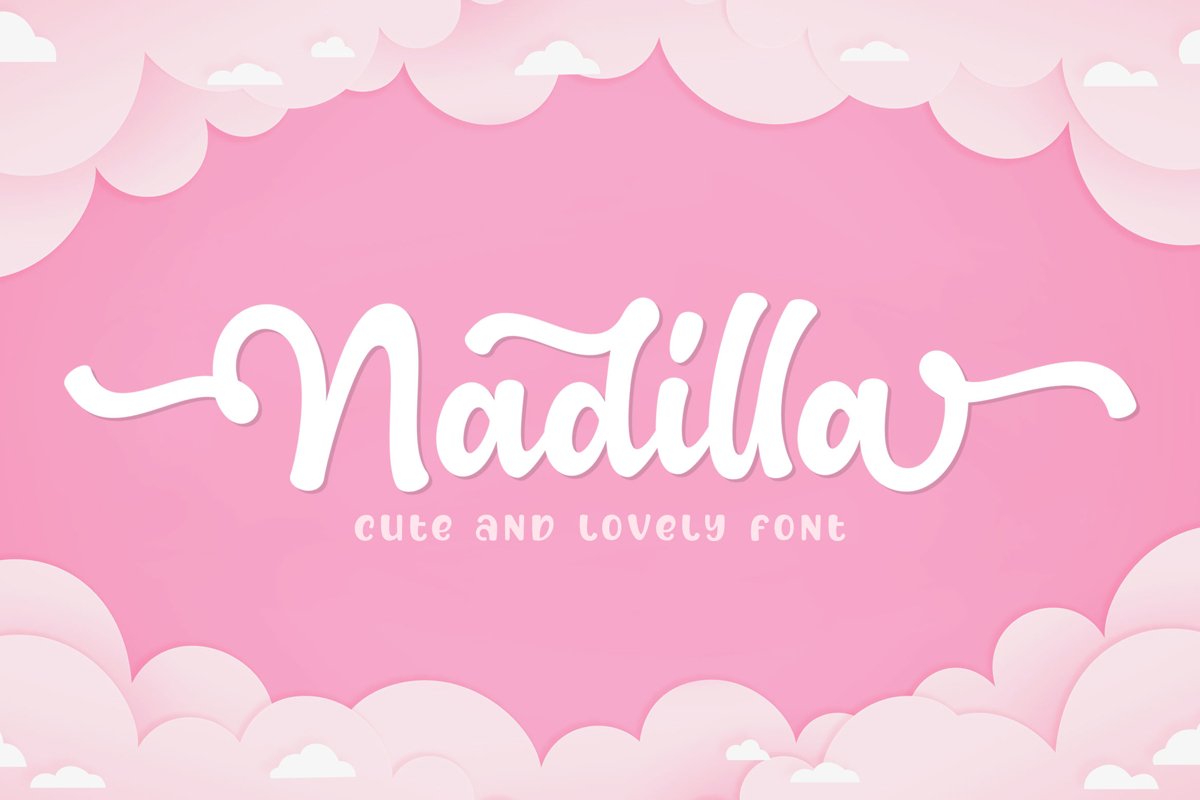
Nadilla / Cute and Lovely Font
Nadilla
introduce our new product called Nadilla.
Nadilla is a Cute and Lovely script font. I designed this font in bold style. it is suitable for display fonts. equipped with alternative letters for beginning and ending. and also "stylistic alternates" which makes this letter very beautiful and attractive.
This is suitable for logos, headlight, clothing, branding, quotes, invitations, stationery, wedding design,album covers, business cards, clothing, magazines, posters, and more!